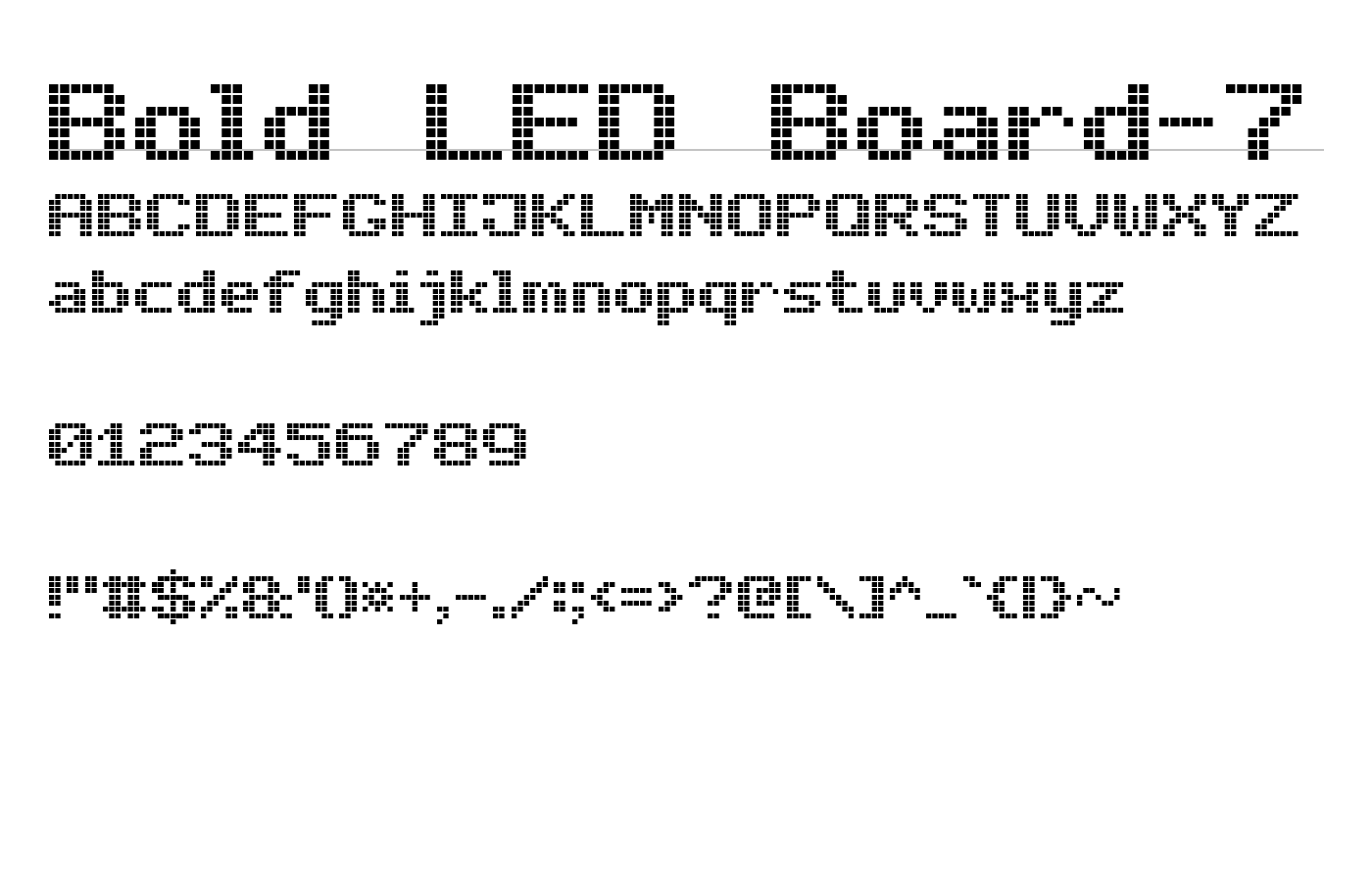
Bold LED Board-7 is a pixelated, monospaced sans serif font that mimics the look of digital LED displays with its grid-like, blocky letterforms. Its uniform weight and consistent square shapes give it a modern, tech-inspired feel, making it ideal for retro digital signage, tech branding, or futuristic design projects that seek a bold and clear display style. This font works best in headlines, logos, or any setting where a strong, digital aesthetic with an easily readable, mechanical character is desired.
Bold LED Board-7 Font
About Bold LED Board-7 Font